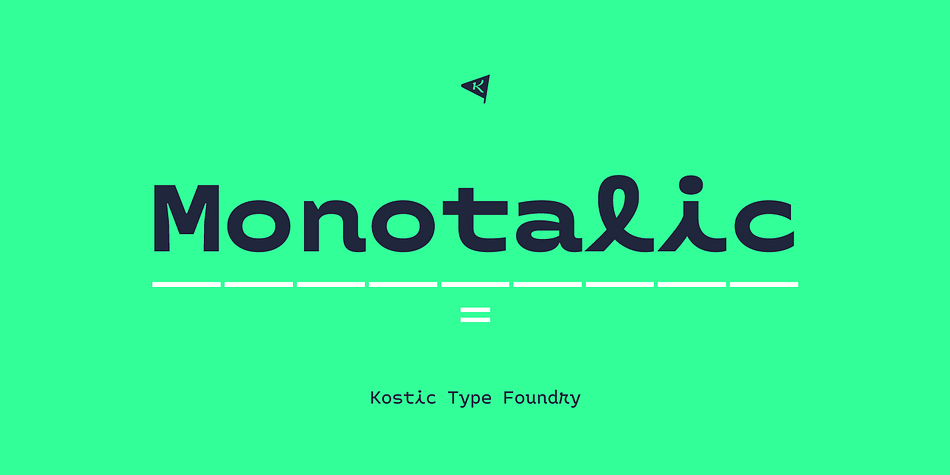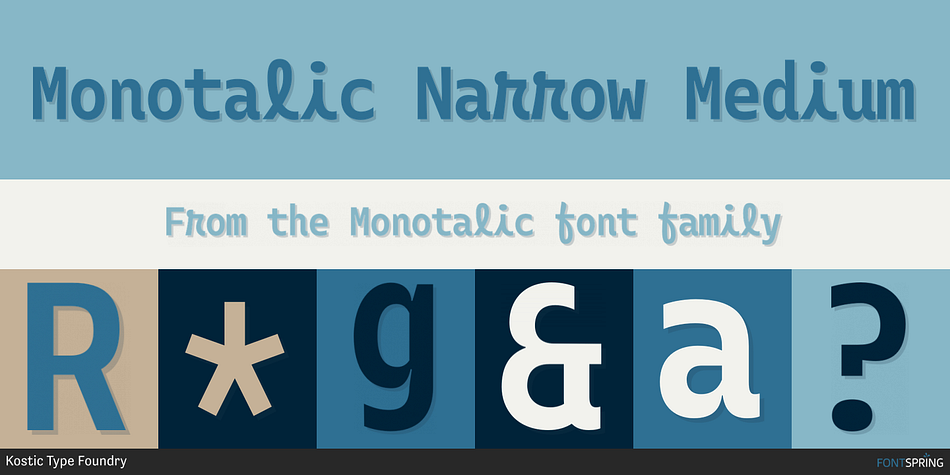
Monotalic Narrow Medium
Designed by Nikola Kostić, Monotalic is a typewriter font family. This typeface has twelve styles and was published by Kostic Type Foundry.
Monotalic was created as a fun experiment, exploring better solutions for the monospaced type design.
Most monospaced (fixed-width) typefaces have the same main design problem regarding the lowercase – filling the empty space around l, f, i, j and r. That usually brings the addition of slab serifs to those narrow characters, causing many monospaced fonts to look and feel alike. Monotalic solves that problem by adopting the handwritten (or cursive) form for those problematic characters, which allows them to be defined in more strokes, thus getting a better distribution of form in that fixed-width space. On the other hand, cursive writing usually lacks the legibility of a Roman (Regular upright) style, so Monotalic was created to be a hybrid, taking the best of both worlds.
Monospaced fonts today are mostly used for coding. Modern code editors use colored text in order to differentiate between different kinds of code. So, in that environment there’s actually no need for traditional text styling by adding Italics, Bold or other styles, because the code lines are overstated as it is. That is why Monotalic focuses on one style only, in three widths and four weights. The weights allow users to choose the perfect contrast of text on screen, depending on their monitor resolution and background color in the editor.
Movie scripts are almost exclusively set in 12pt Courier. It became the industry standard because when set in the specific “screenplay format” it helps with the breakdown of the schedule and budgeting process of the film production. Although it looks completely different, text set in Monotalic (Normal width) will take the same amount of space as Courier.